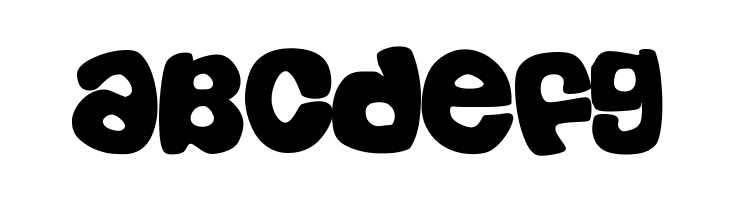
LemonPress Display - Personal Use Font
- Font: LemonPress Display - Personal Use
A bold, playful font with rounded, thick strokes and a casual, friendly vibe.